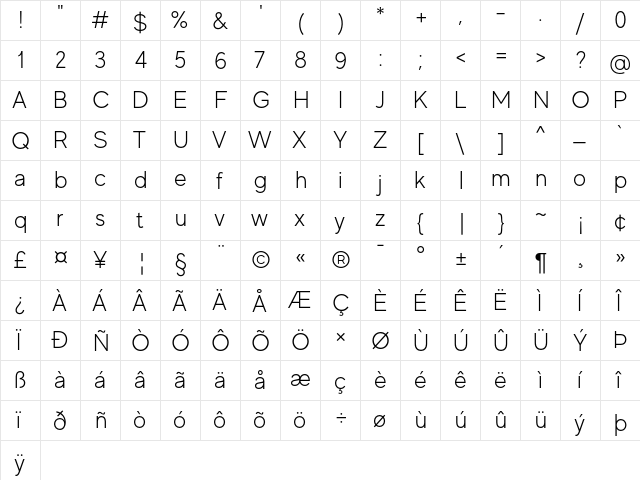
MADE Evolve Sans Light
| Foundry | MadeType |
| Designer | MadeType |
Design Context for MADE Evolve Sans Typeface
MADE Evolve Sans takes a measured approach to typography — its balanced proportions and neutral character make it a reliable workhorse for both digital and print work. The delicate stroke weight brings airiness and refinement to layouts.